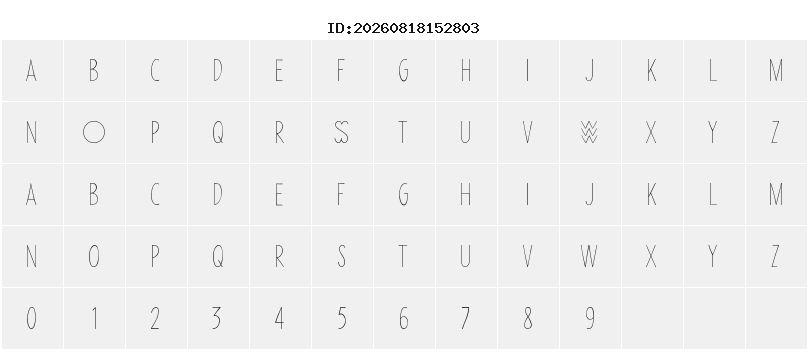
Slimbits Preview
• Font Name: Slimbits
• Full Font Name: Slimbits
• Version: Version 1.00 August 13, 2013, initial release
• Designer: Stephen Bird
About Slimbits.ttf
Slimbits.ttf is a modern, elegant sans-serif font designed for ultimate readability and visual harmony. Perfect for branding, headlines, web design, and print materials.